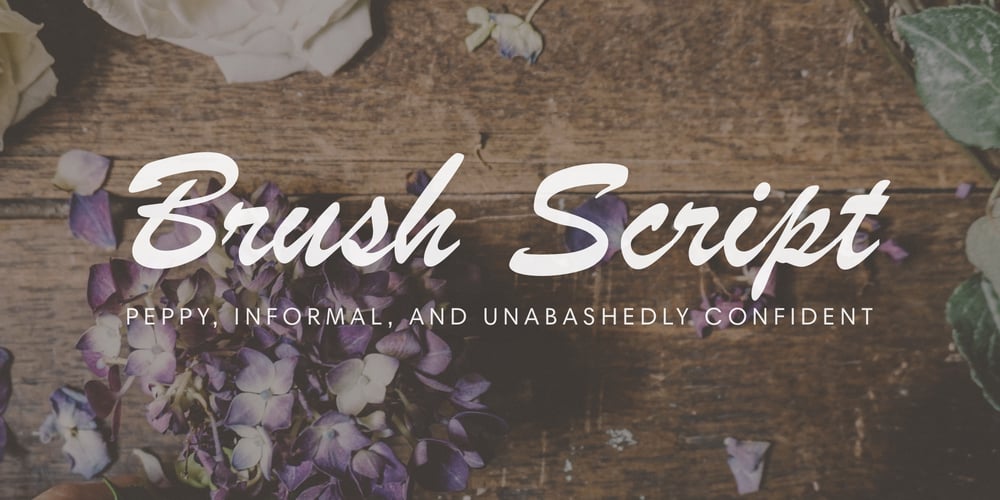
Brush Script
Brush Script font
Brush Script Font Family was designed by Robert E. Smith and published by Bitstream. Brush Script contains 1 styles and family package options. The archetype of the Brush Script, designed for ATF by R.E. Smith in 1942.